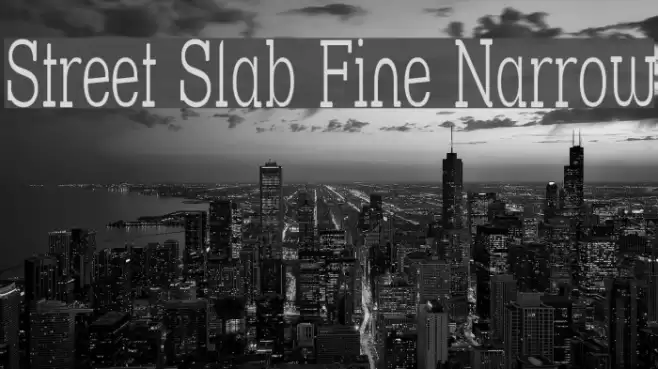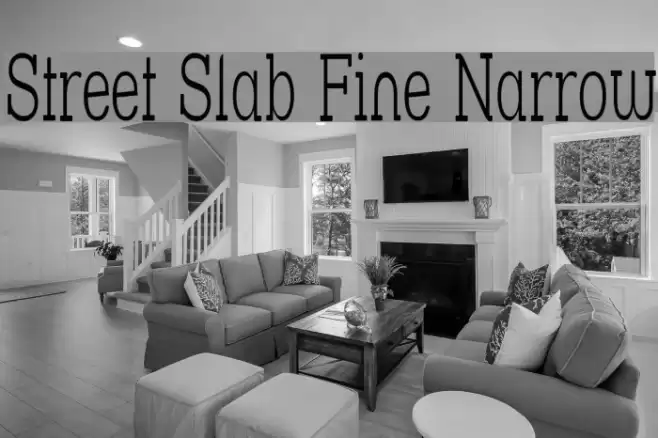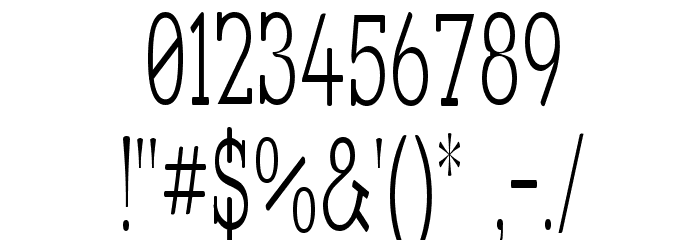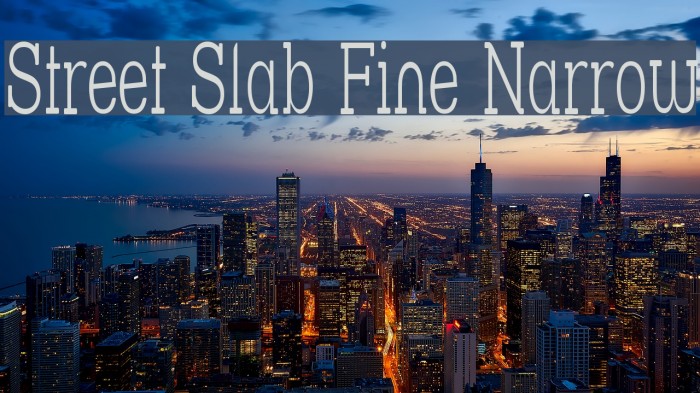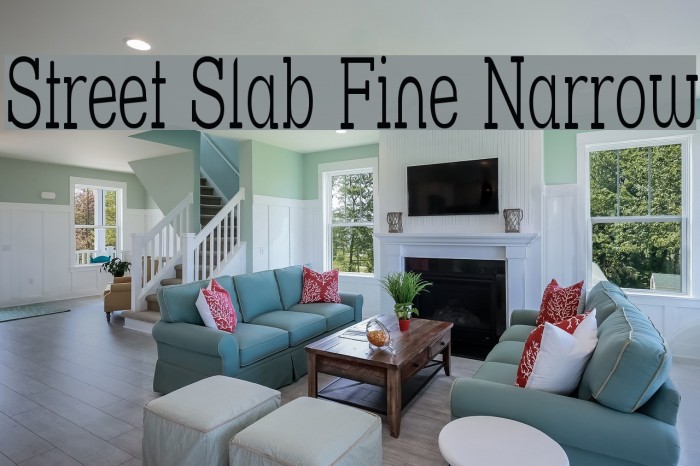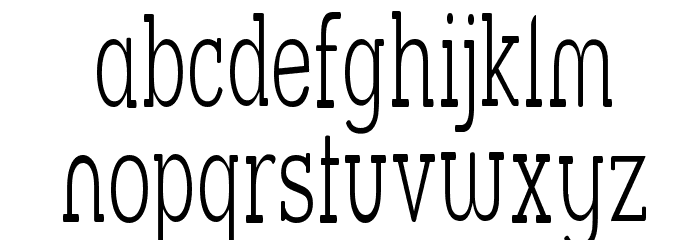
Street Slab Fine Narrow Font
Street Slab Fine Narrow Description
This font features a clean and structured design with a slab serif style, characterized by its fine and narrow letterforms. The uppercase and lowercase letters maintain a consistent height and width, providing a uniform appearance. The numerals are clear and easily distinguishable, while the special characters are well-integrated, ensuring readability across various contexts. The font's narrow width and fine strokes give it a modern and sophisticated look, making it suitable for both digital and print media. Its balanced proportions and subtle serifs add a touch of elegance, making it versatile for a range of design applications.
A fine, narrow slab serif font with a modern and elegant style from Uncategorized fonts.
- Proposed Projects: Ideal for editorial design, branding, signage, and web design projects.